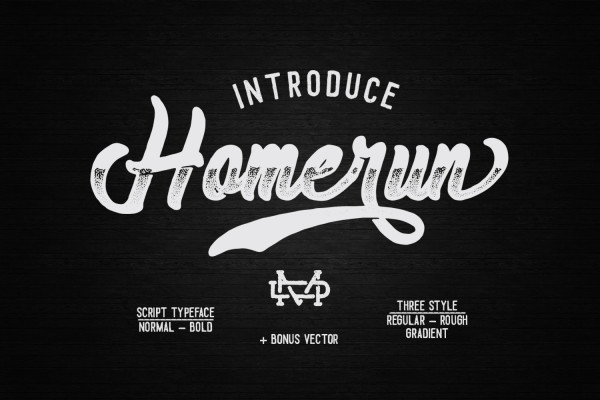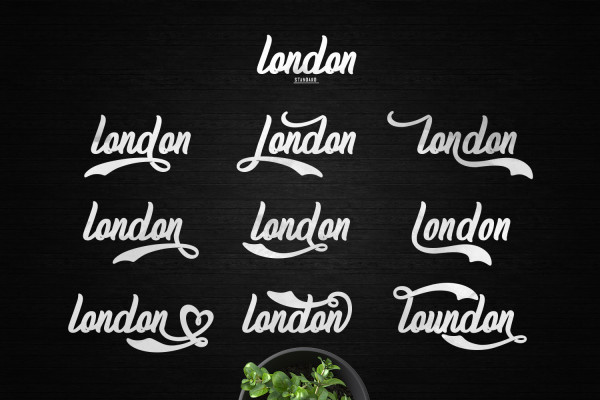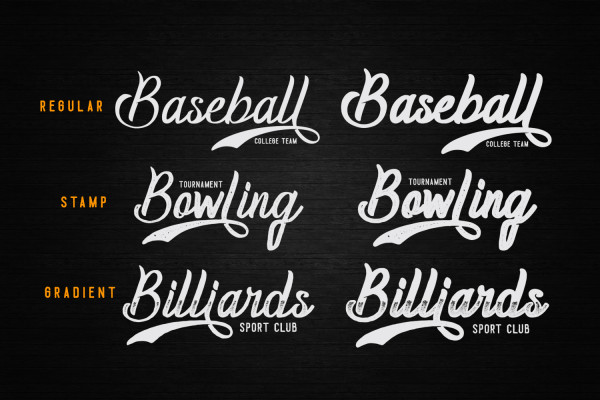
Homerun Script Font
Homerun Script Font is a classic script font that will turn any design idea into a true standout! Get inspired by its unique charm.